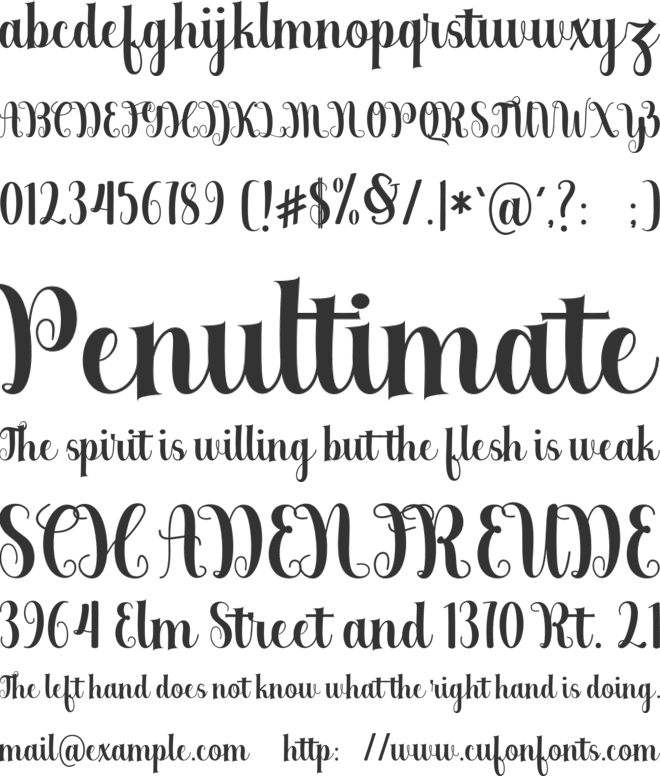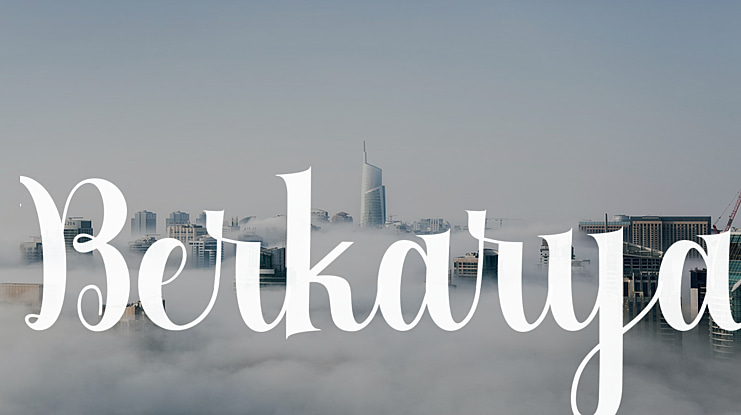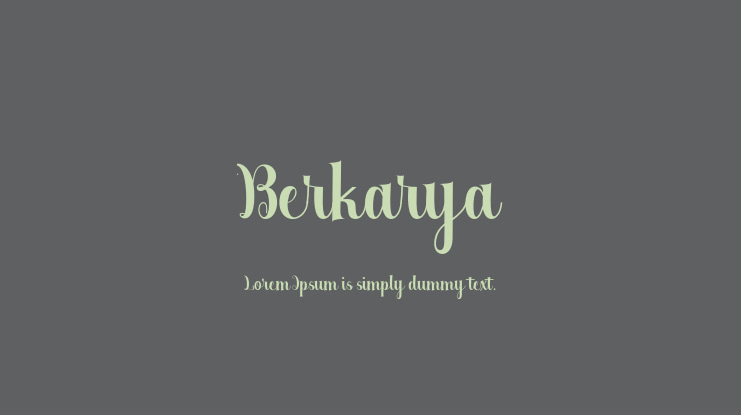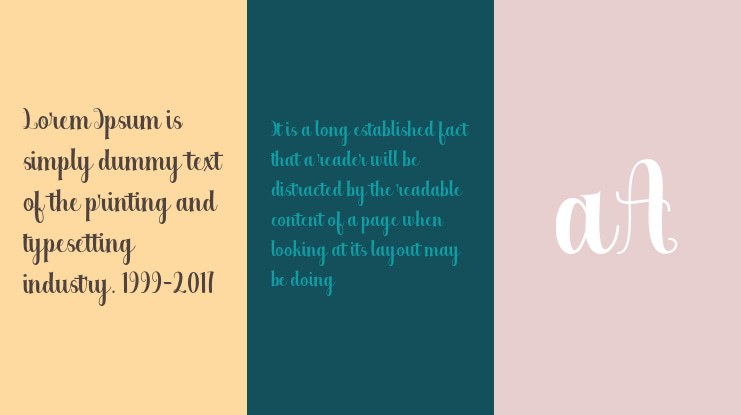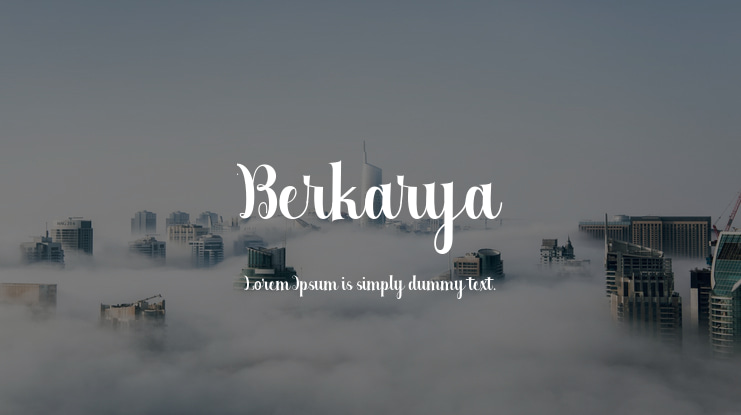
Berkarya Font
Berkarya Modern Calligraphy. This font was designed by handwriting, and it has a modern and unique forms of calligraphy, the writing style is very natural.NOTE: This demo font is only for PERSONAL USE! But any donations are highly valued.Paypal account for donations:  (mailto:)Link to buy the full version and commercial license:crmrkt.com/q4XoBy (https://crmrkt.com/q4XoBy)Please visit our store for more good fonts:creativemarket.com/Juniors94 (https://creativemarket.com/Juniors94)Thank you